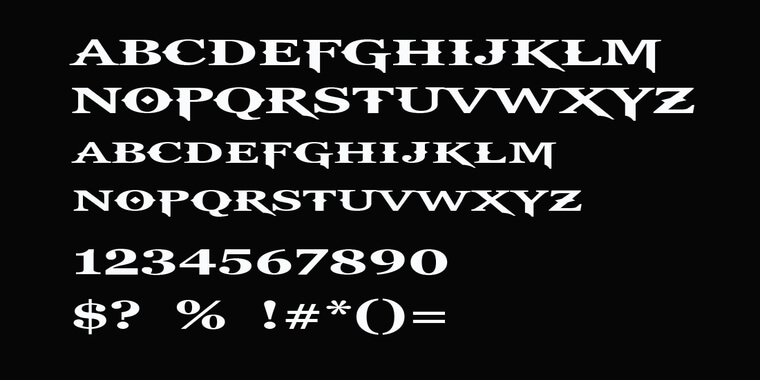
God of War is a game series about adventure and action that is inspired by Greek mythology. The game came out in 2005 for the PlayStation 2.
The God of War logo is just its name with a Omega symbol in the middle. The style of writing used in the logotype looks a lot like a font named God of War. The font has big letters, numbers, and a few punctuation marks.